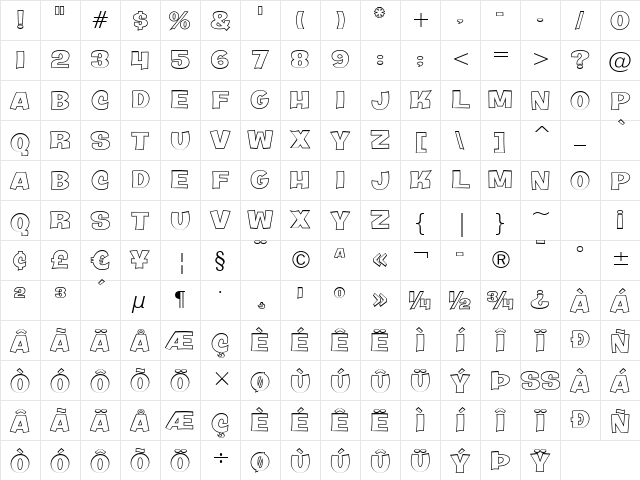
Java Kick BTN Ext Out Regular
Design Context for Java Kick BTN Ext Out
Java Kick BTN Ext Out is a composed and adaptable typeface that performs quietly and consistently across a wide range of design contexts.
Pro Tip: Use Java Kick BTN Ext Out in both headline and body roles to test its range before committing to a single application.